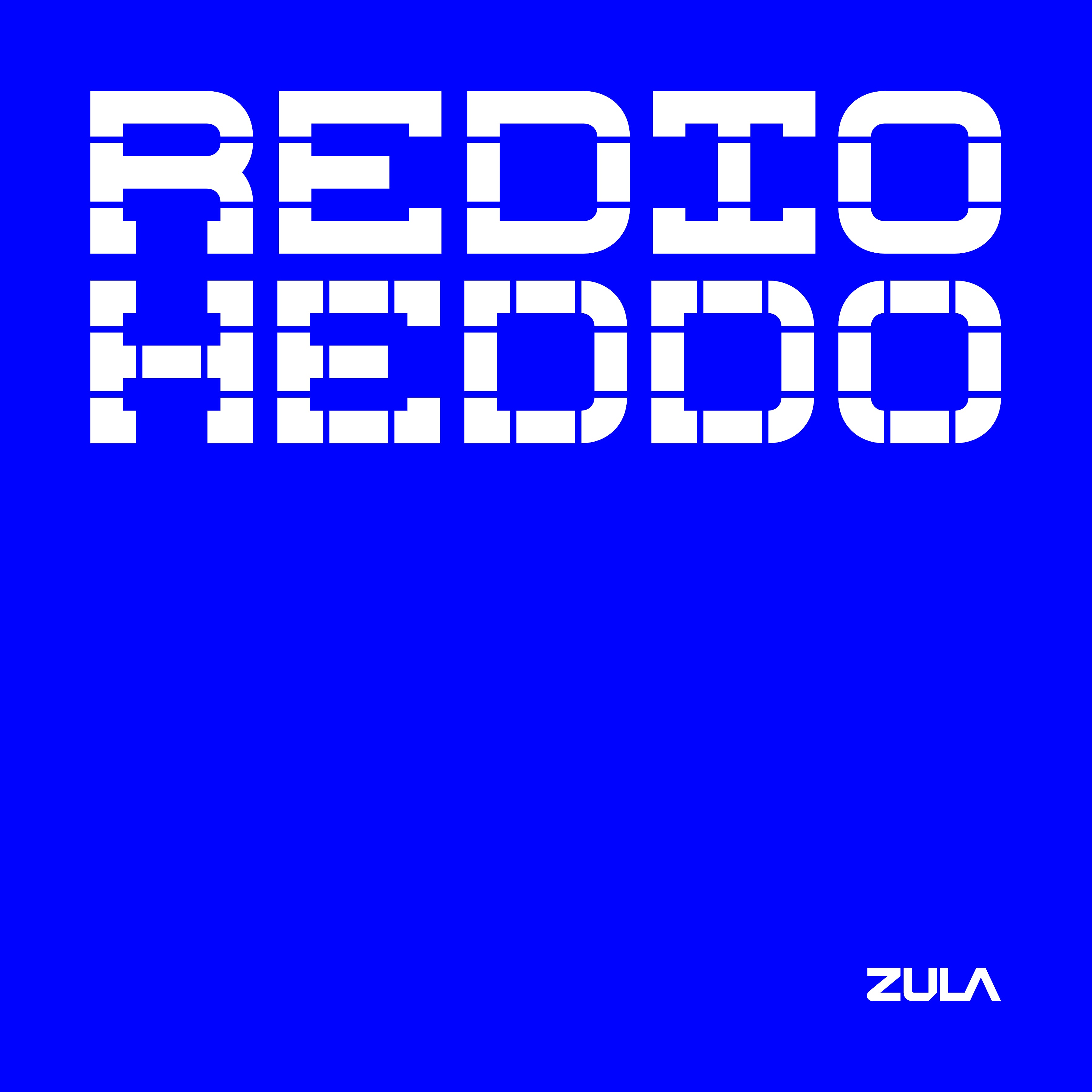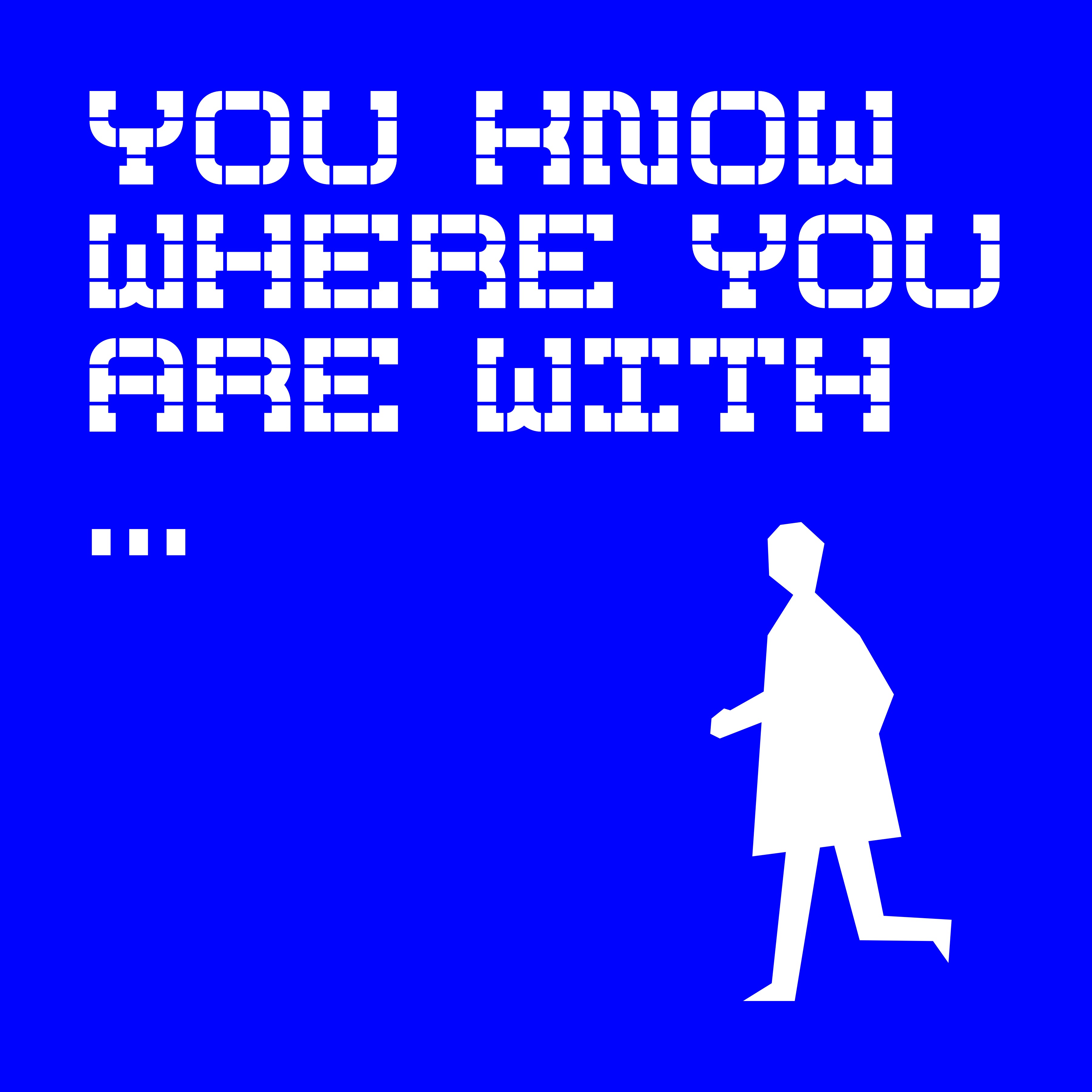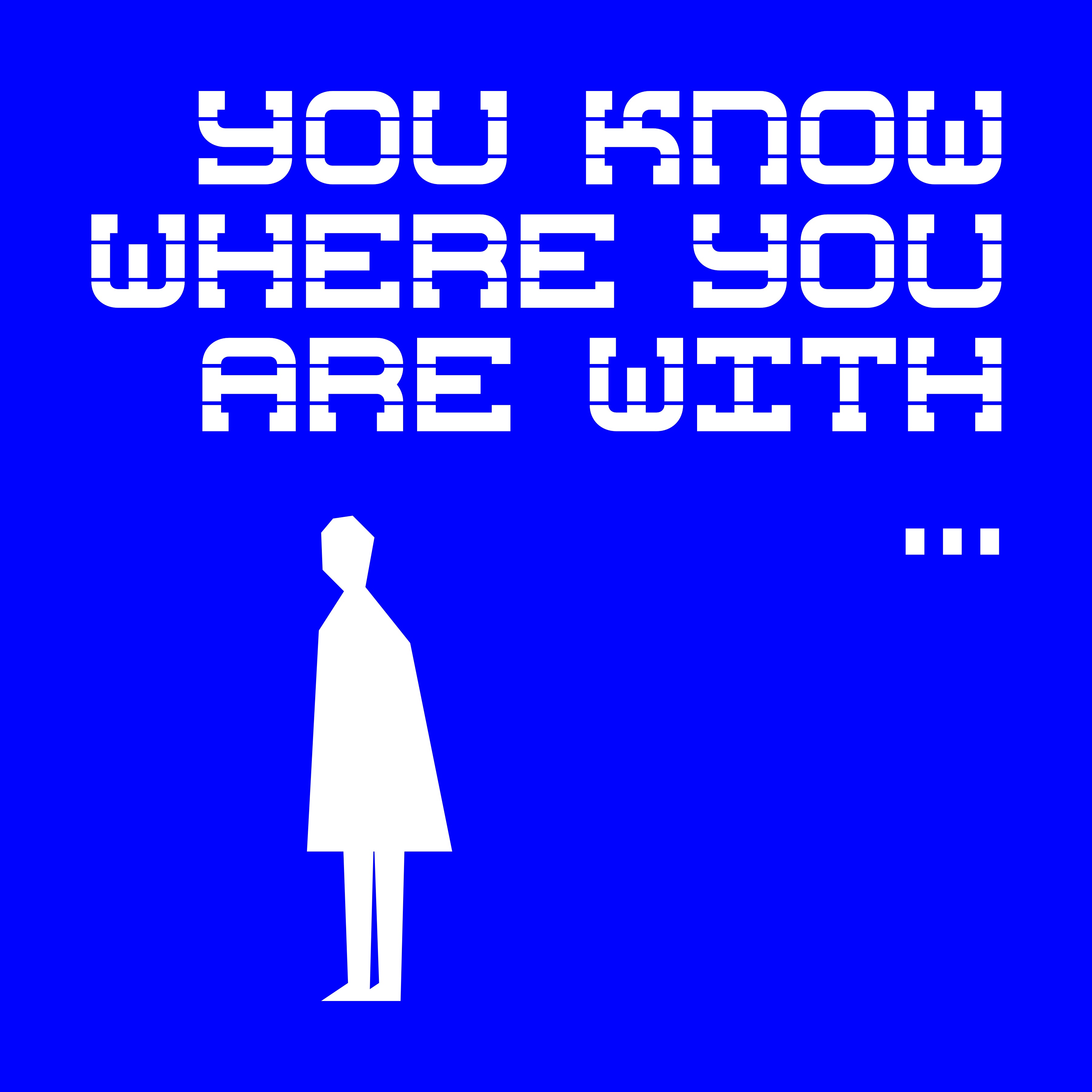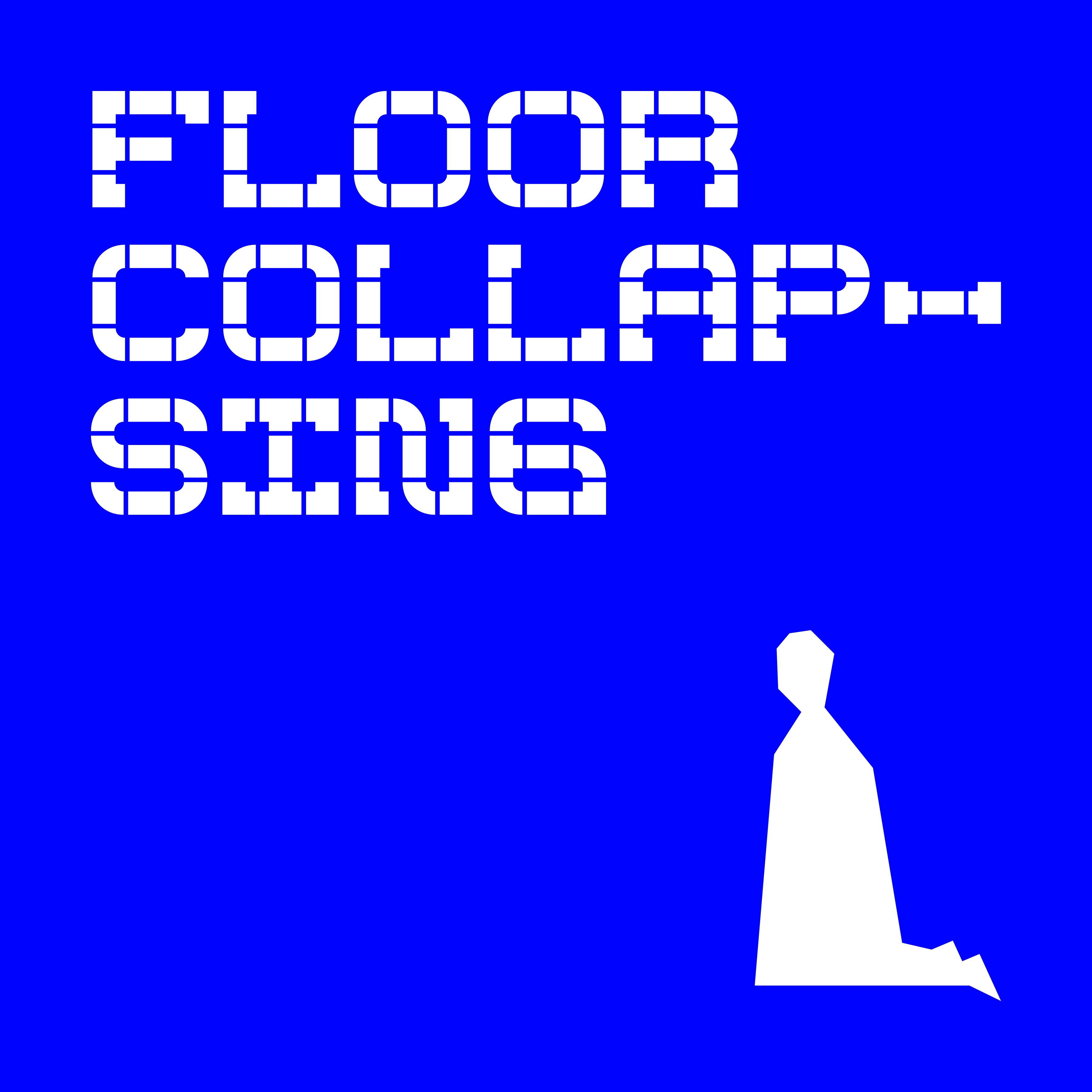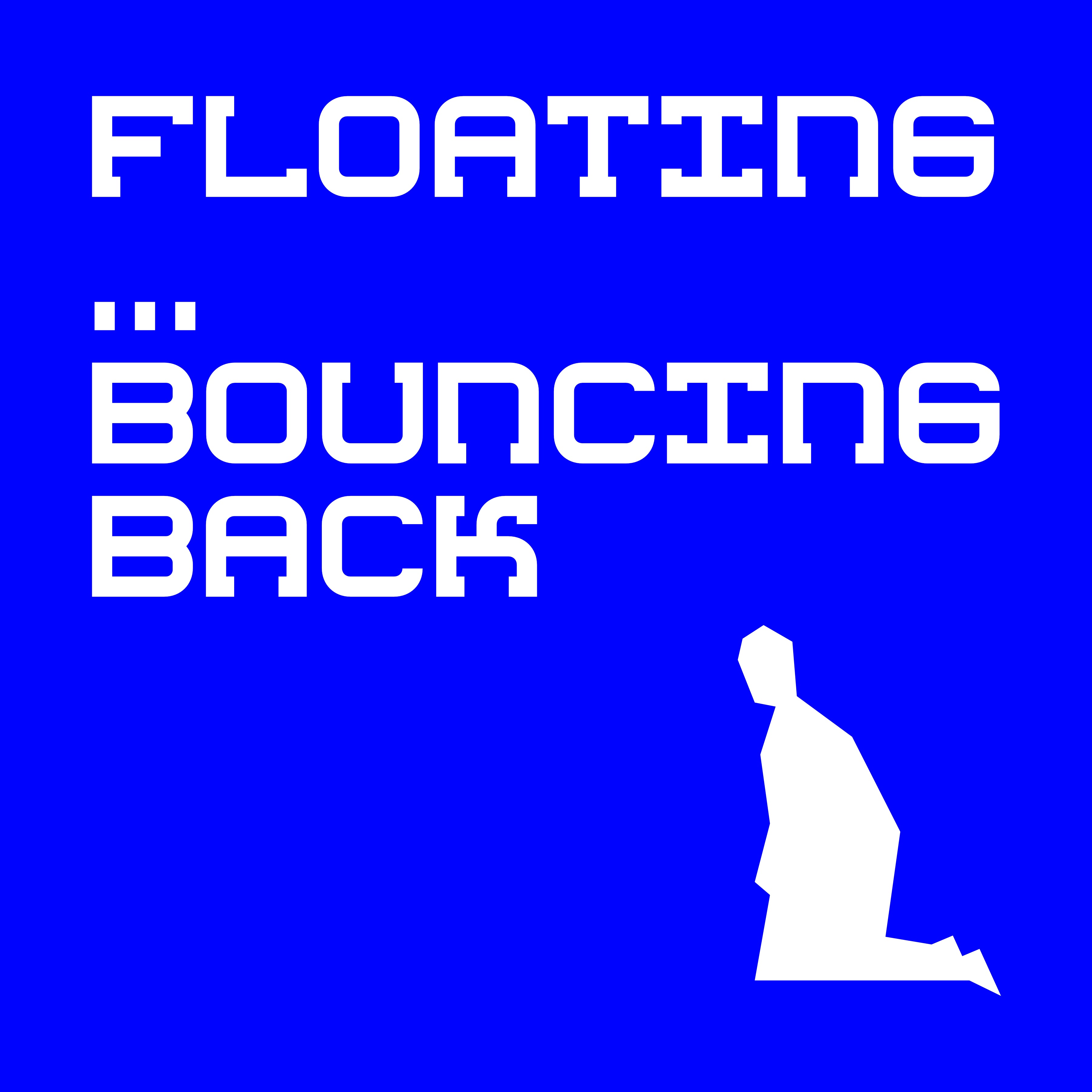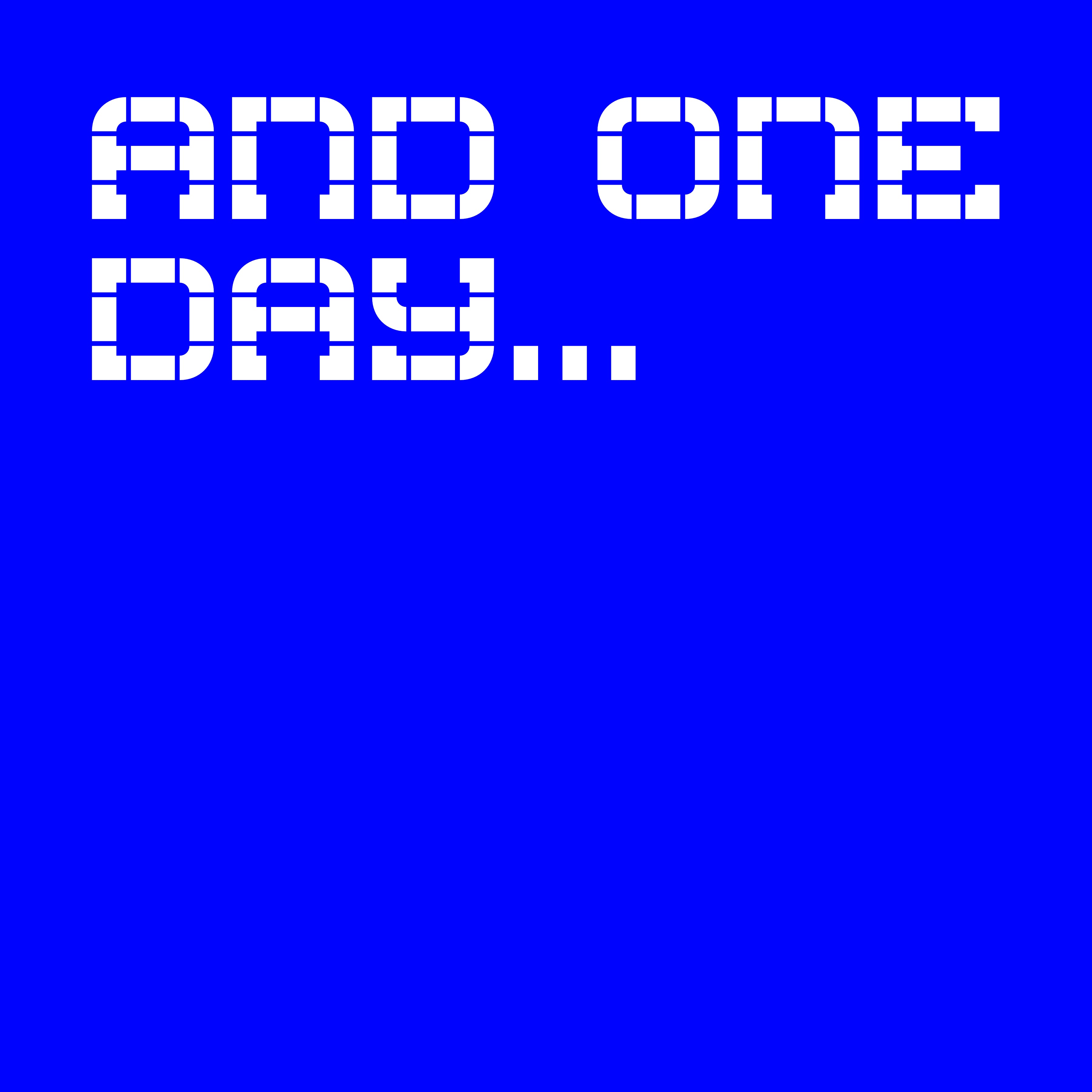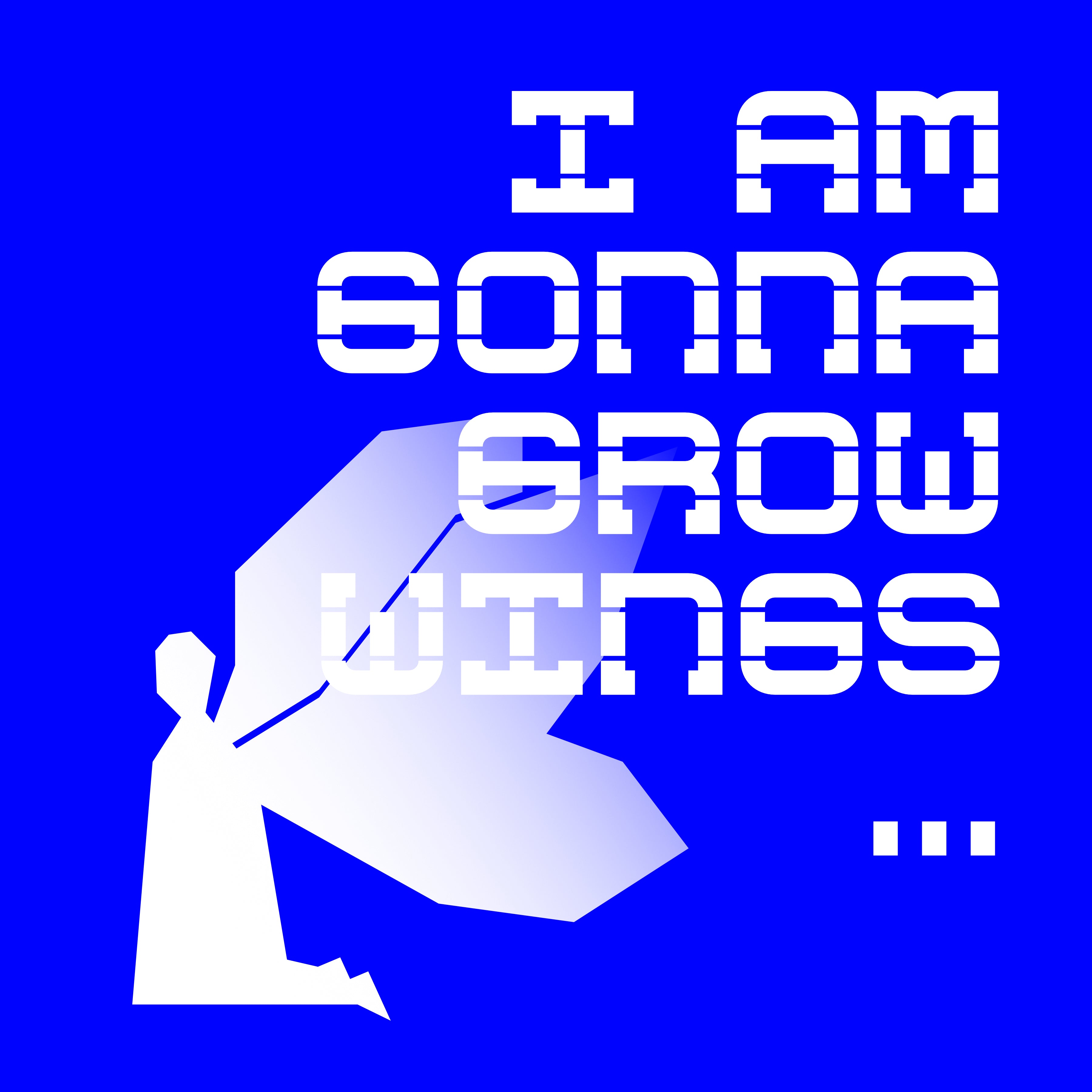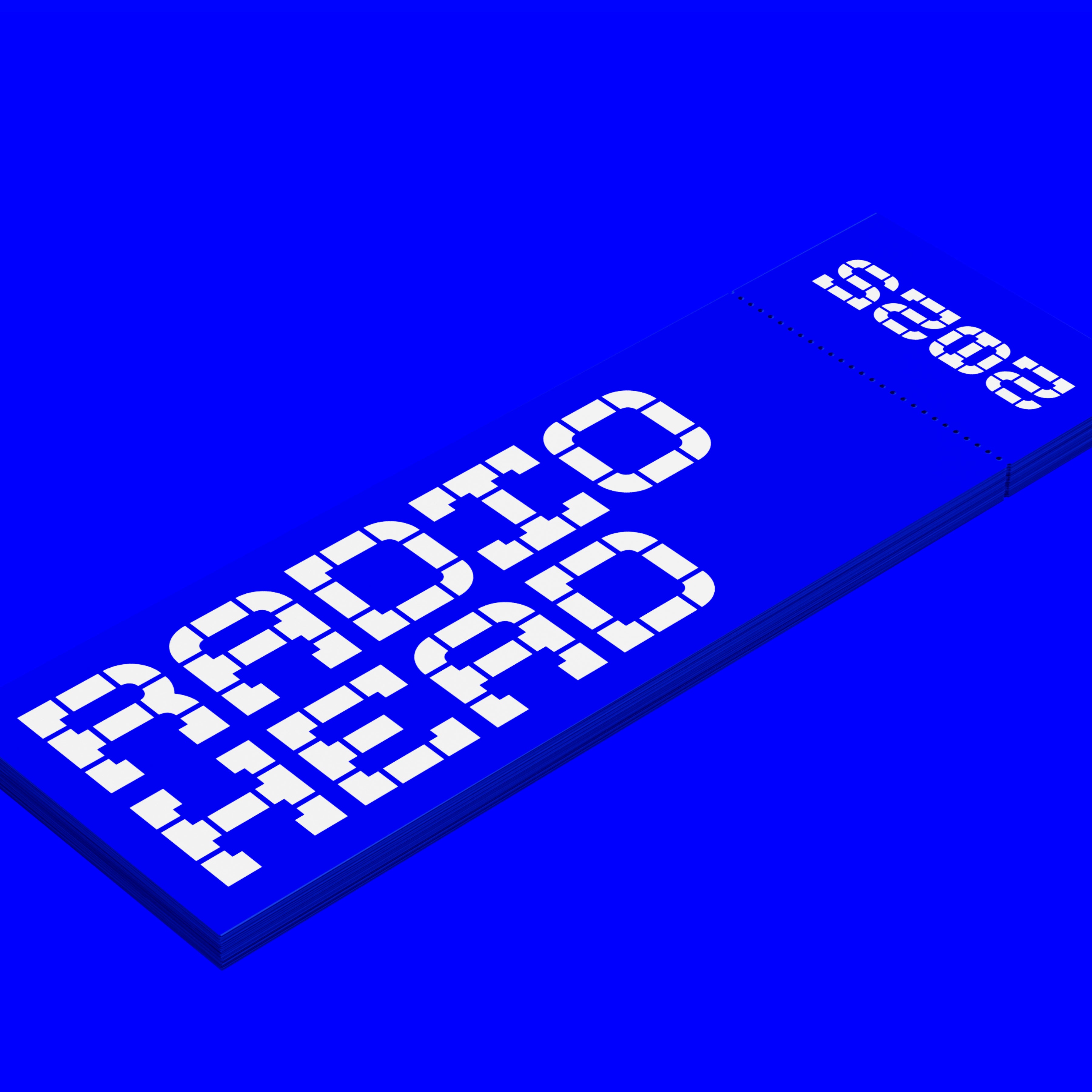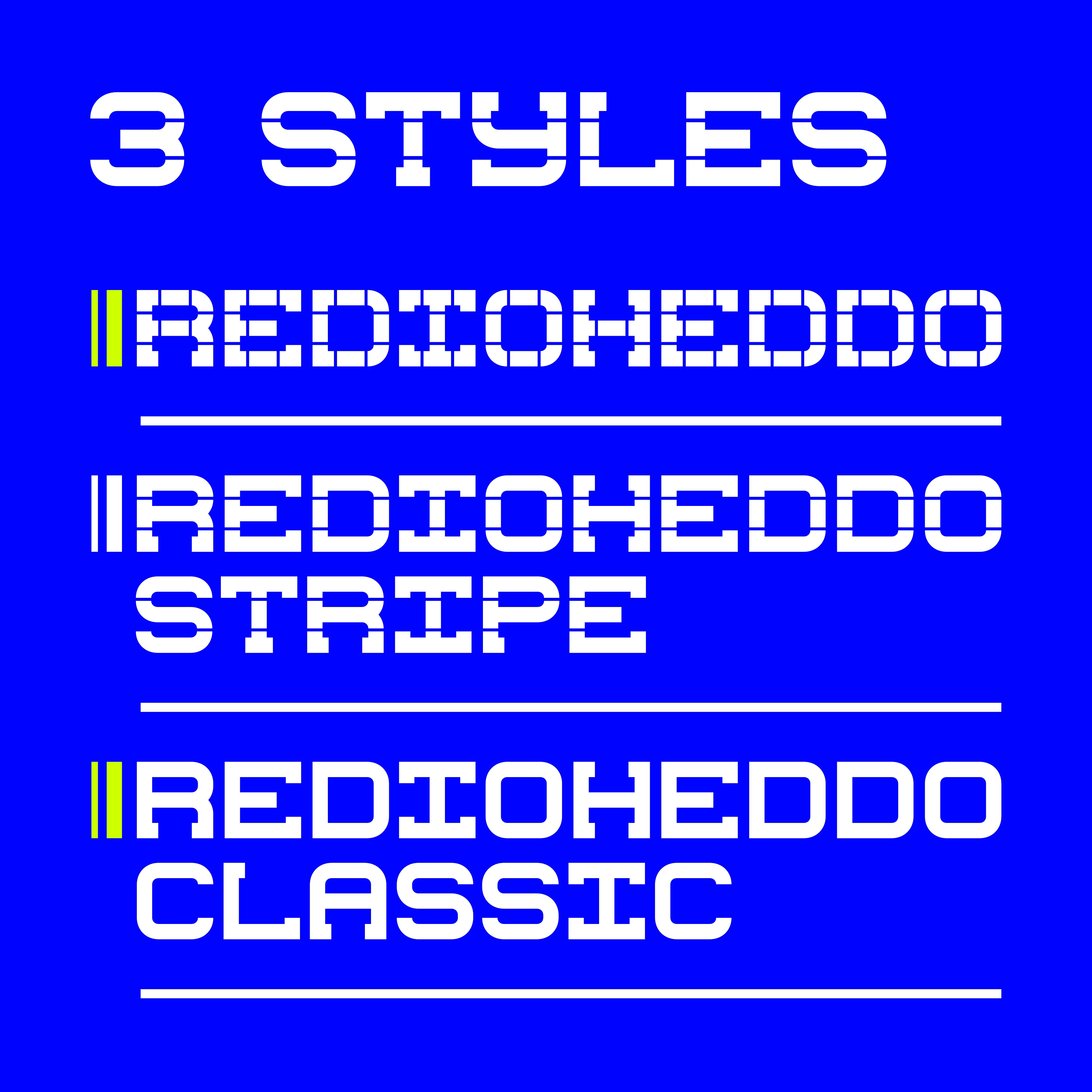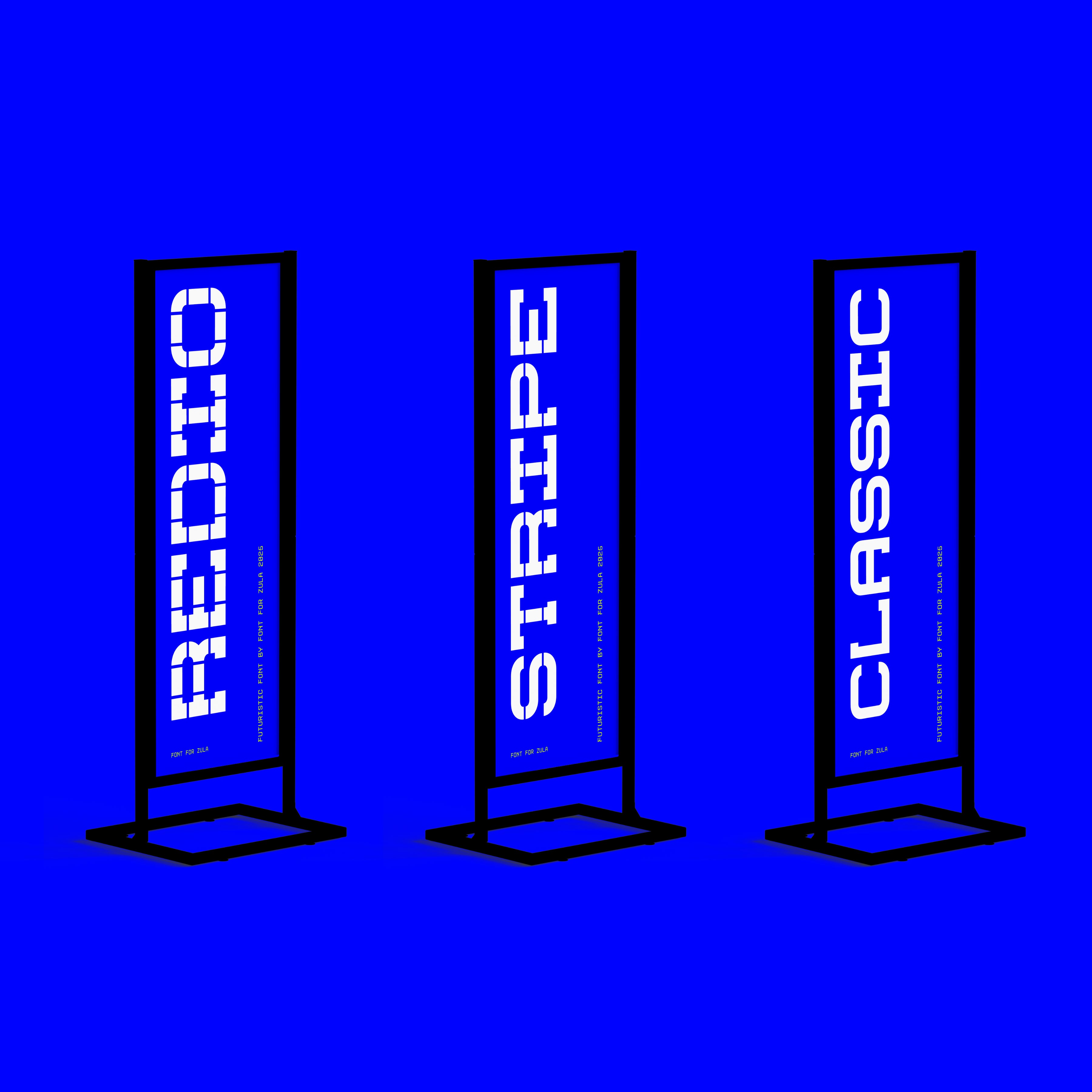
REDIOHEDDO FONT FAMILY
REDIOHEDDO typeface was created when I was really into Radiohead songs. I listened to their songs every day and every time. Their songs relate a lot to my life, about mixed feelings but still optimistic in their own way, not forced optimism.
Then I wanted to create a typeface that fits the Radiohead band brand, and finally a typeface called REDIOHEDDO was created. REDIOHEDDO itself is the Japanese name for Radiohead.
REDIOHEDDO is an All Caps typeface which is basically a rigid composition engineered into letter forms.
3 Styles ; REDIOHEDDO, REDIOHEDDO STRIPE, REDIOHEDDO CLASSIC
26 Letters A-Z
5 Alternative Letters
10 Numerals
Basic Punctuation